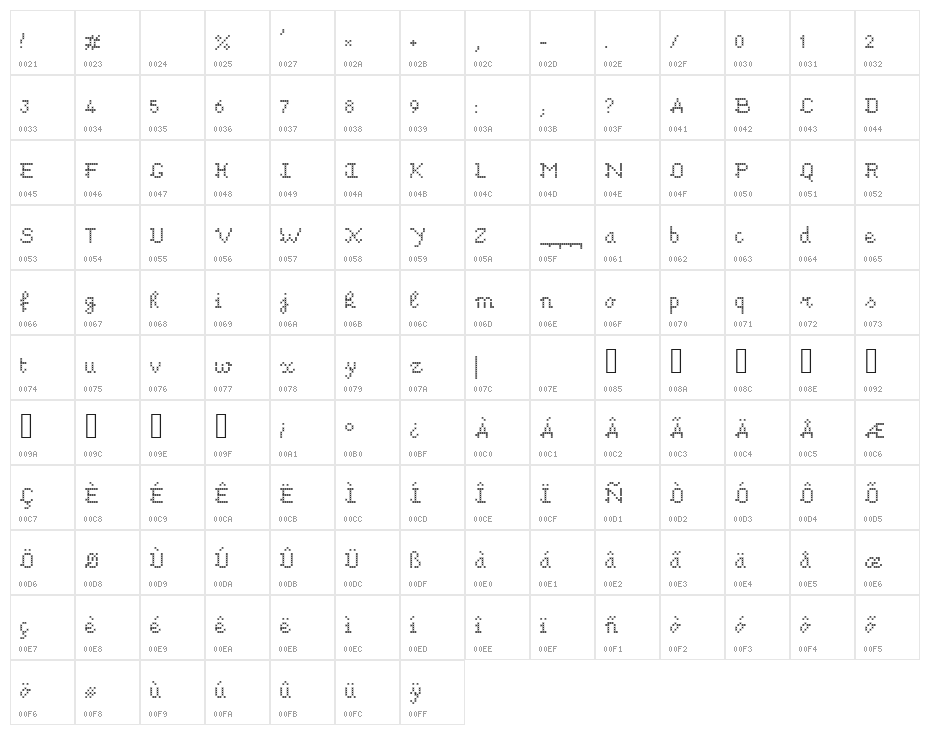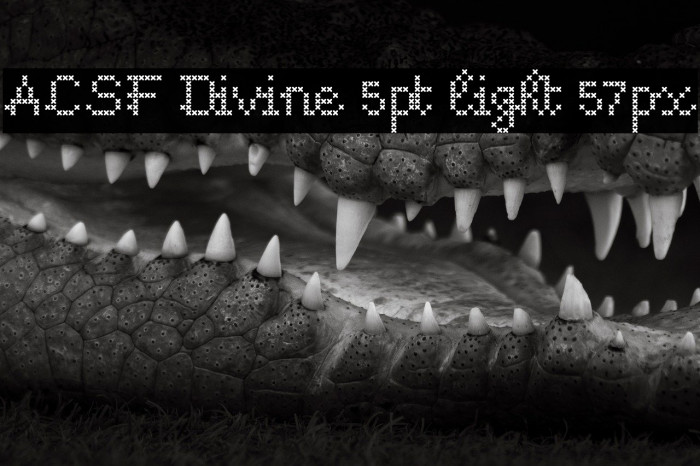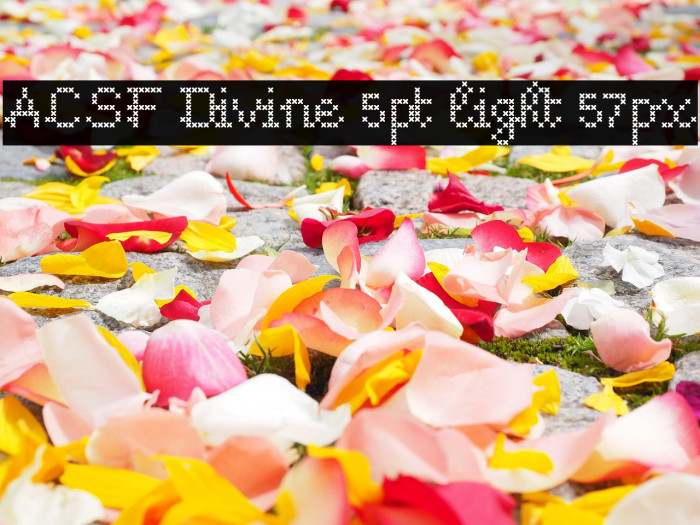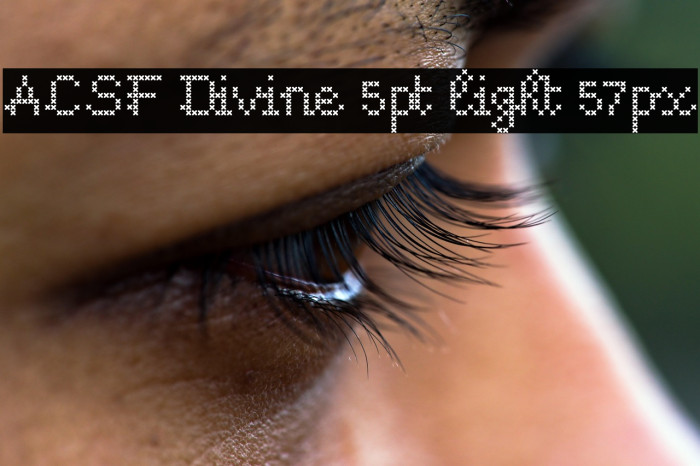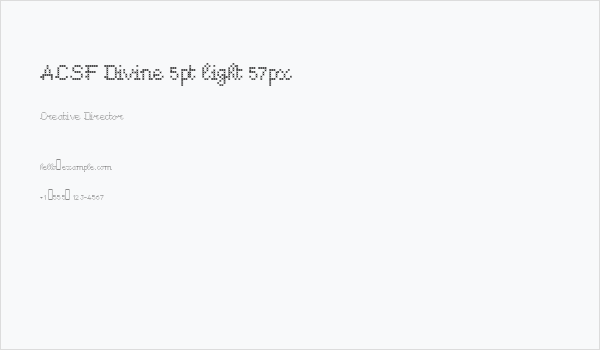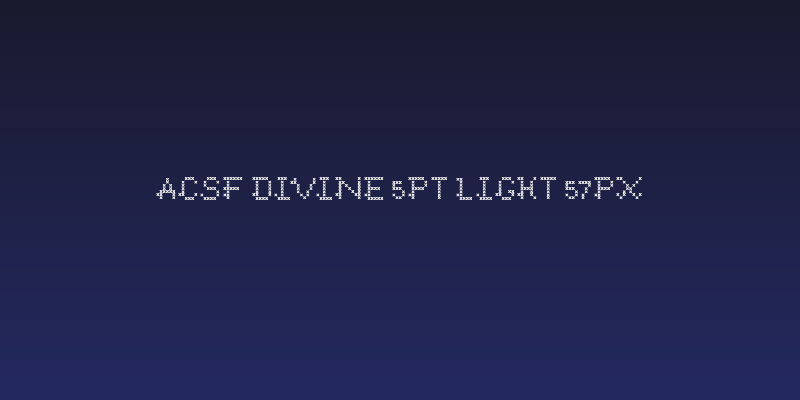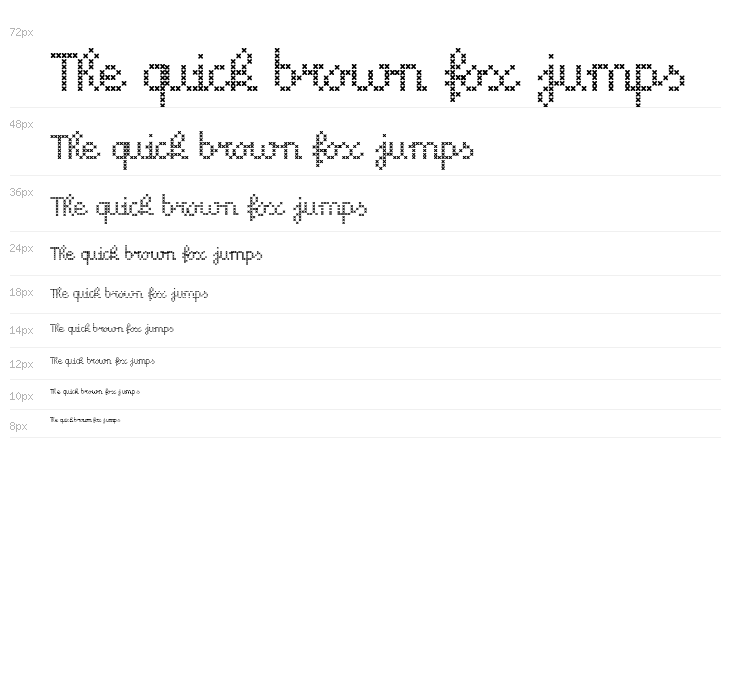
ACSF Divine 5pt light 57px Font
ACSF Divine 5pt light 57px Description
This font features a unique cross-stitch pattern that gives it a handcrafted and artistic appearance. Each character is composed of small 'x' shapes, creating a textured and intricate design. The font maintains a consistent structure across uppercase, lowercase, numbers, and special characters, providing a cohesive look. Its distinct style is reminiscent of traditional embroidery, making it stand out in any design project. The characters are evenly spaced, ensuring readability while retaining the decorative quality. This font is perfect for projects that require a touch of creativity and a vintage or handmade feel.
| Proposed Projects | Ideal for craft projects, DIY invitations, embroidery-themed designs, and vintage-style branding. |